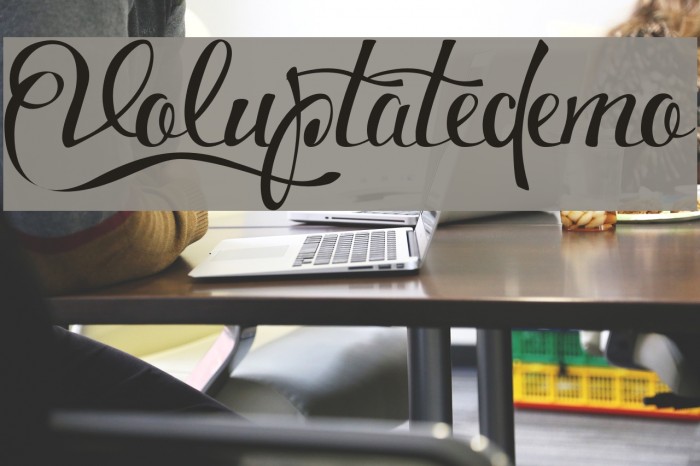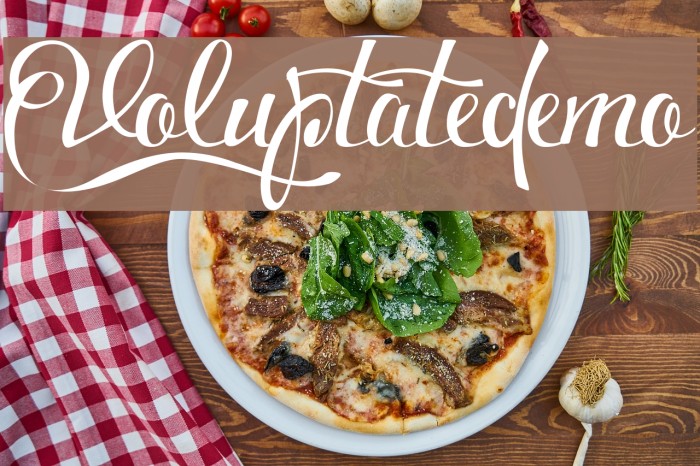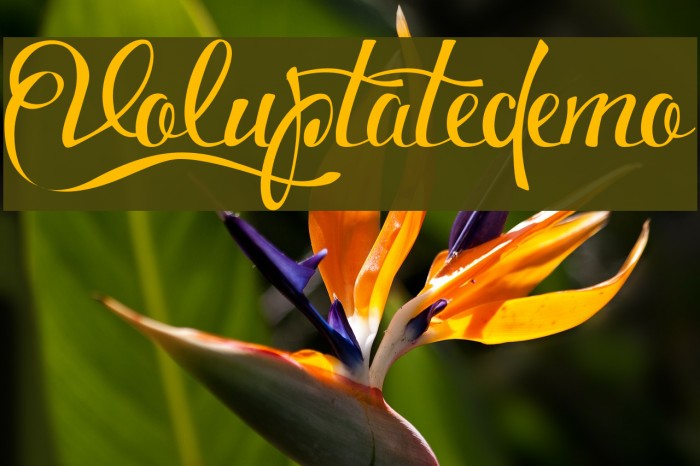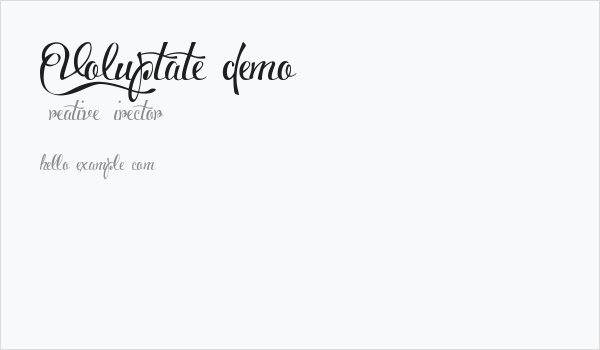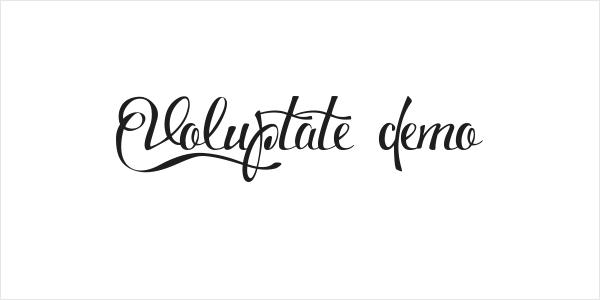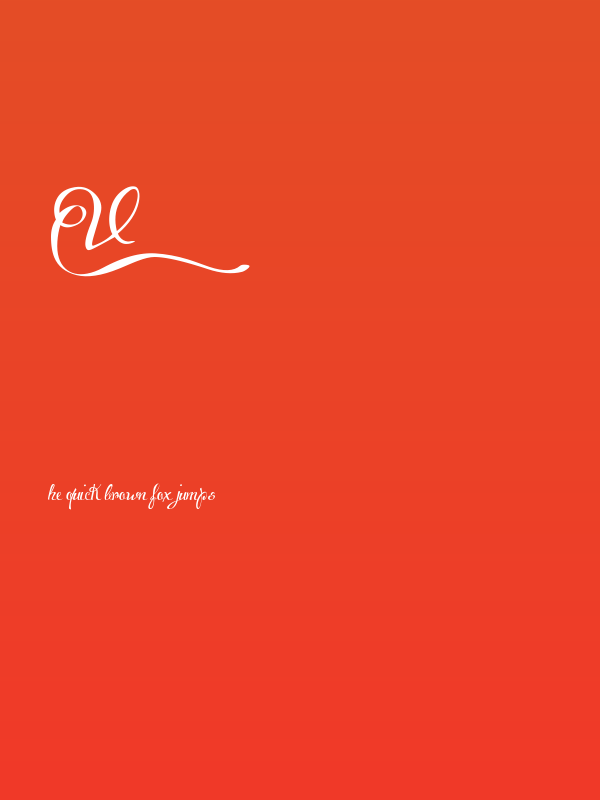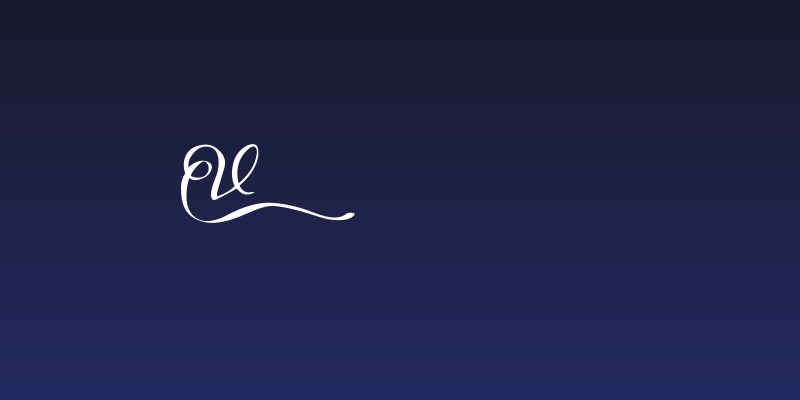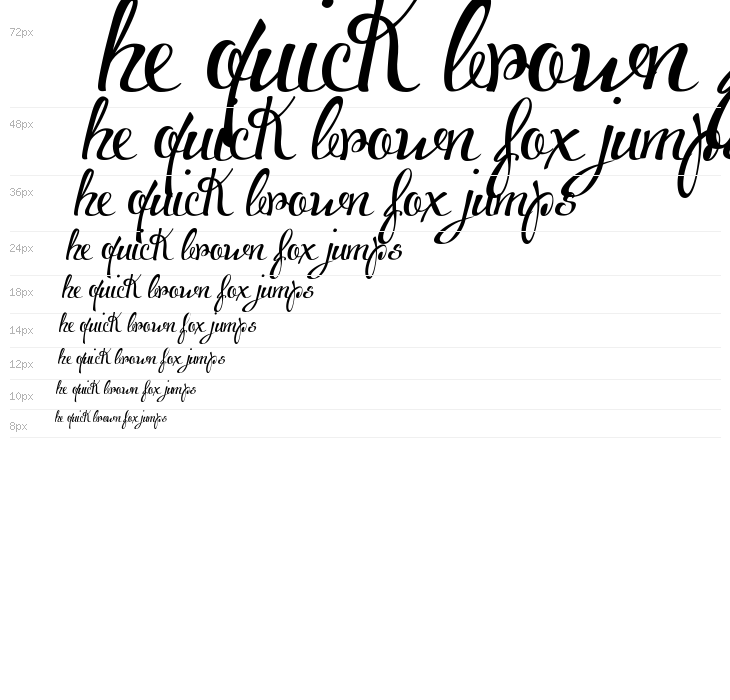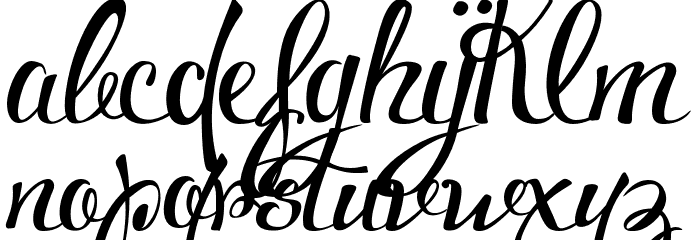
Voluptate_demo Font
Voluptate_demo Description
This font features an elegant and flowing script style, characterized by its intricate and interconnected letterforms. The strokes are smooth and fluid, creating a sense of movement and grace. The uppercase letters are particularly ornate, with elaborate swashes and loops that add a decorative touch. The lowercase letters maintain a consistent style, with a slight slant that enhances the cursive appearance. The overall design is sophisticated, making it suitable for formal and artistic applications. The font's unique style captures attention and conveys a sense of elegance and refinement.
Overall StyleElegant, Decorative
Use CaseLogos, Invitations, Decorative Text
Proposed ProjectsIdeal for wedding invitations, elegant branding, artistic projects, and decorative headings.